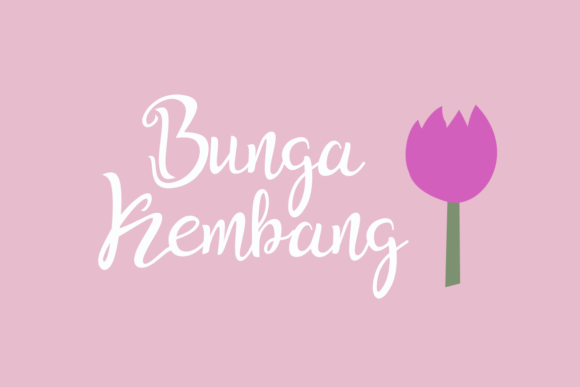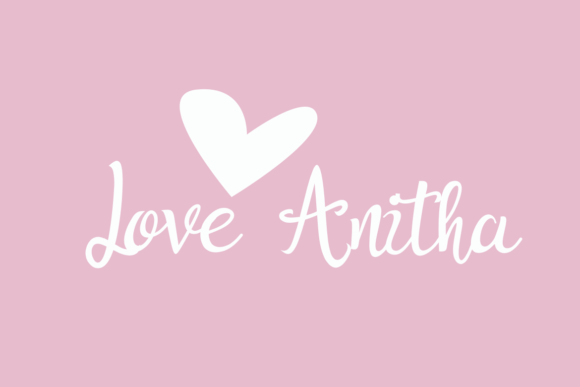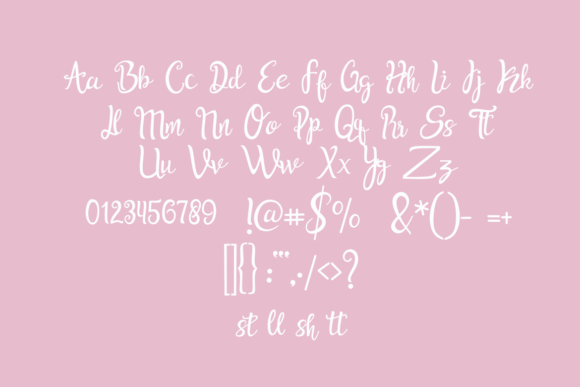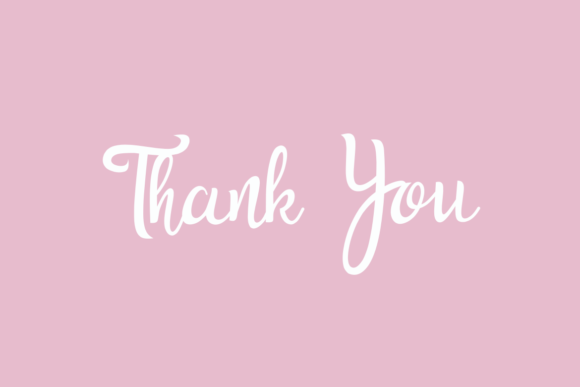
The Perfect Match for Your Creative Ideas
Have you ever been working on a design project, pouring your heart and soul into every detail, only to feel like something is missing? You’ve tried different colors, layouts, and even fonts, but nothing seems to bring it all together. That’s when you stumble upon the Bella Dahlia Font – a delicate, elegant, and flowing handwritten font that has the power to breathe new life into your most creative ideas.
With its beautiful and well-balanced characters, the Bella Dahlia Font is the perfect addition to any design. Whether you’re creating a wedding invitation, a blog post, or a marketing campaign, this font is sure to elevate your work and make it stand out from the crowd.
As a valuable asset for designers, the Bella Dahlia Font offers a level of sophistication and elegance that is hard to find in other fonts. Its versatility and range of applications make it a must-have for any creative professional looking to take their designs to the next level.
Bella Dahlia Font Key Features
- Unique Characteristics: Elegant script with a touch of vintage charm, ideal for creative and artistic projects.
- Font Style: Script, perfect for adding a personal touch to invitations, greeting cards, and other handwritten-style designs.
Bella Dahlia Font Review
I recently had the chance to work with the Bella Dahlia Font, and I must say it’s a mixed bag. Here’s my honest review:
- The font’s elegance and sophistication make it perfect for high-end designs, such as luxury branding or wedding invitations.
- The script-style font is highly customizable, with various ligatures and swashes that can add a personal touch to your designs.
- The font’s subtle nuances and flourishes give it a unique, handmade feel that’s hard to replicate with digital tools.
- The font may be a bit too ornate for more casual designs, such as blogs or social media posts.
- The font’s complexity can make it difficult to pair with other fonts, which may limit your design options.
The Bella Dahlia Font is a beautiful, high-end font that’s perfect for special occasions or luxury brands. However, its limitations may make it less suitable for everyday use. With some careful planning and design decisions, this font can add a touch of elegance to your projects.
Tips for Getting the Most Out of Bella Dahlia Font
Use the Bella Dahlia font to create elegant and sophisticated designs. It pairs well with floral and vintage elements. Experiment with different font sizes and styles to create a unique look. Use it for headings, titles, and body text to add a touch of elegance to your designs.
The Bella Dahlia font is perfect for:
- Floral and vintage-themed designs
- Wedding and event branding
- Stationery and letterhead
Alternative Fonts to Bella Dahlia
Font: Carolyna Pro
Carolyna Pro is a beautiful, elegant script font that is perfect for creating a sophisticated and luxurious look. It is ideal for use in branding, wedding invitations, and other high-end design projects.
Comparison to Bella Dahlia: While both fonts are elegant and feminine, Carolyna Pro has a more refined and classic feel, making it a great choice for projects that require a touch of sophistication.
Font: Great Vibes
Great Vibes is a modern and stylish script font that is perfect for creating a fun and lively atmosphere. It is ideal for use in branding, advertising, and other design projects that require a playful and energetic feel.
Comparison to Bella Dahlia: While both fonts are playful and stylish, Great Vibes has a more modern and edgy feel, making it a great choice for projects that require a bold and attention-grabbing look.